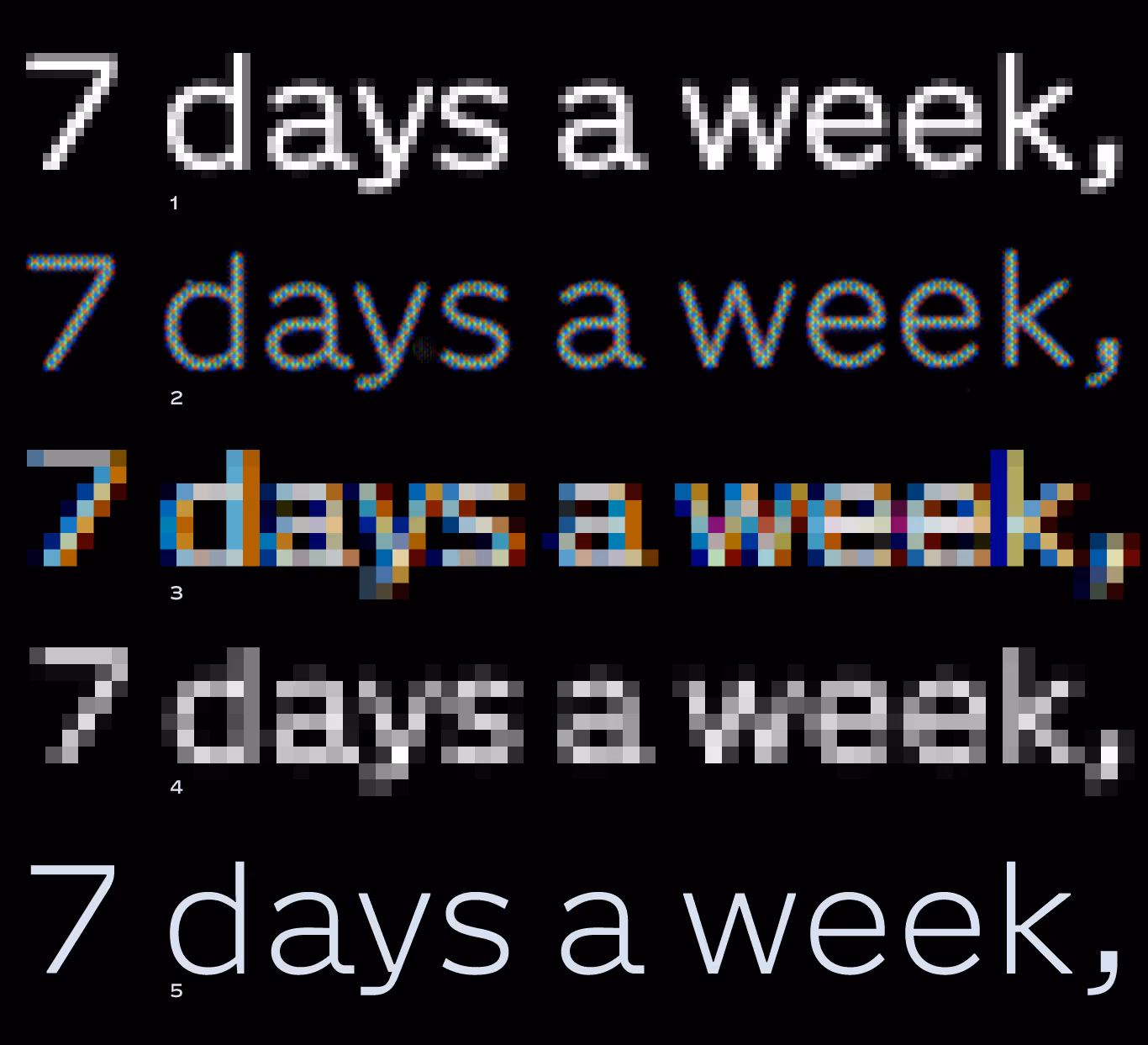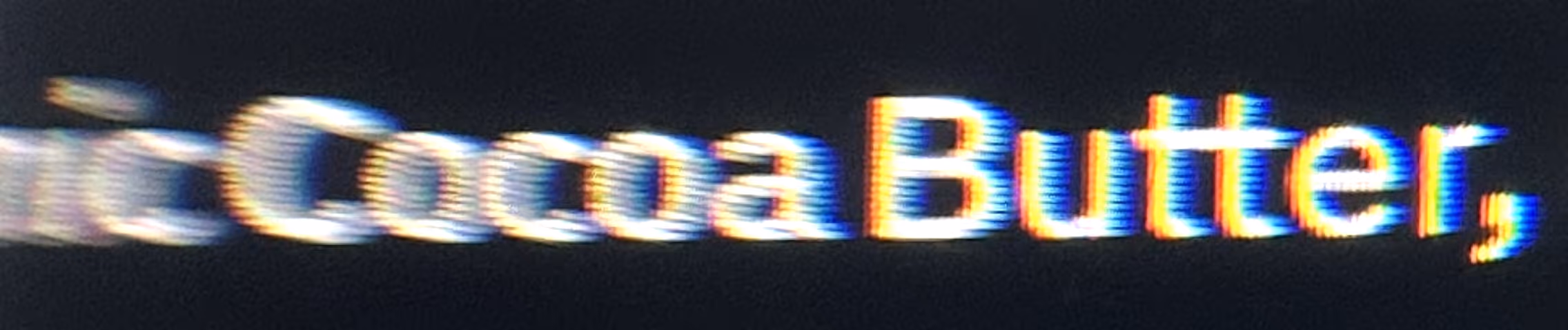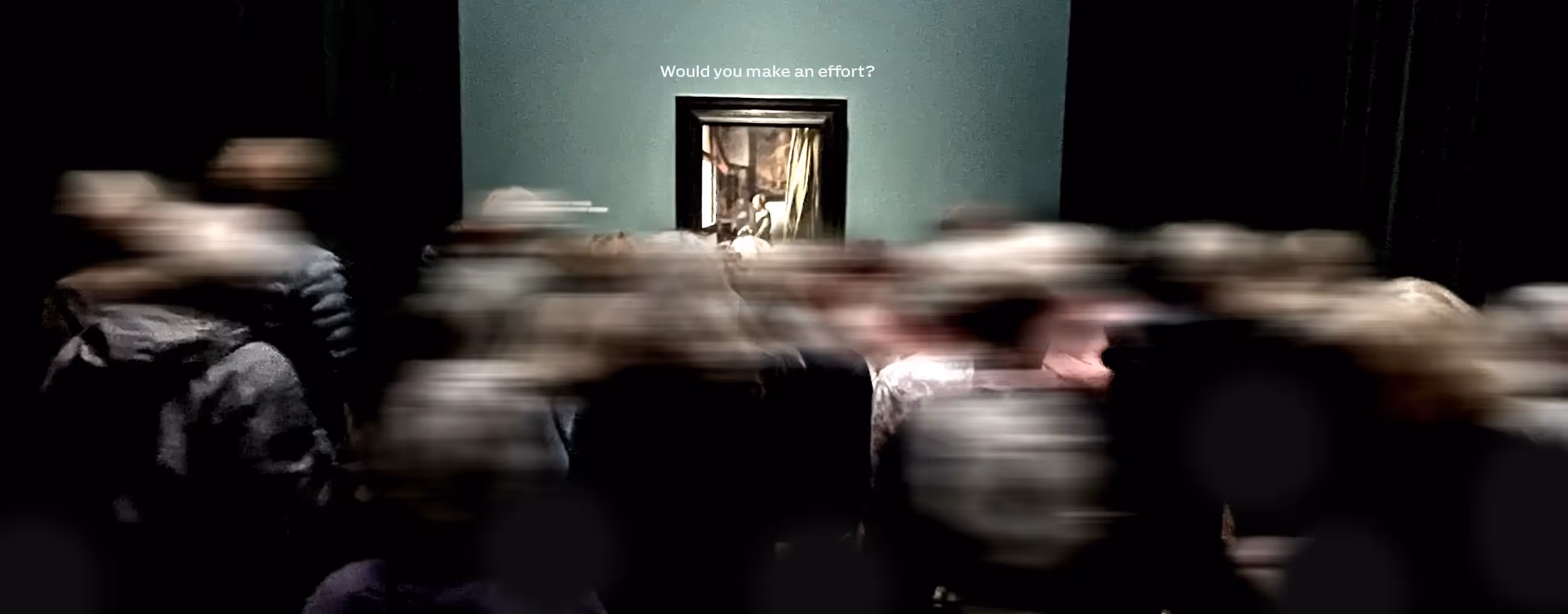
Think of all the optical processes that collectively enable reading. Not the cognitive steps (hard to observe unless you happen to be a neurologist with a spare MRI ), but all the moments before that. Anything to do with surface, shape, light, angular size, distance, cornea, lens, diffraction and retina. If you are a typographer, or a keen observer of the world in general, you will be familiar with these terms. This text explores some of the ideas that floated around in my head while I drew AG.
Squint
Smaller, bigger
As a reader you have some control over the process (of reading), but less than you think. You can only hope the materials were prepared with some care. The most comfortable reading takes place between arm’s length and somewhere near your nose, depending on your ability to accomodate and your age. The readable object, a book or device, can easily be moved closer or further as the eyes demand, possibly single handedly. This puts some practical limits on the weight and size of the object. Book designers know, some device designers know too, web and app designers definitely should know.
The typographer has to find a balance for the type size on such a readable object, while keeping in mind the needs of economy and comfort. Smaller type allows for more words on a page, but inevitably means the object has to be closer to the nose. Thus the hand brings it closer. Then the eyes have to work harder to accomodate and focus, so the hand moves the object further away again. As readers we do this almost automatically and if we manage to find a balance, there is a chance that some reading might take place. Failing that, headaches and frustration. Often the type size is to blame. You might not always know it when that happens.
For signage, posters, lettering on a wall, etc. your only means of adjusting the text is to move yourself through space. This is where typography for faraway objects branches off from typography for nearby objects. If a sign gets it wrong the reader might not be able to get any closer. Traffic, architecture, height, other people, there are many reasons why this might not be possible. You cannot switch the whole street to dark mode. You cannot pinch and zoom over the shoulders of the person in front of you. The cost of getting it wrong is higher. The typography has to work harder.
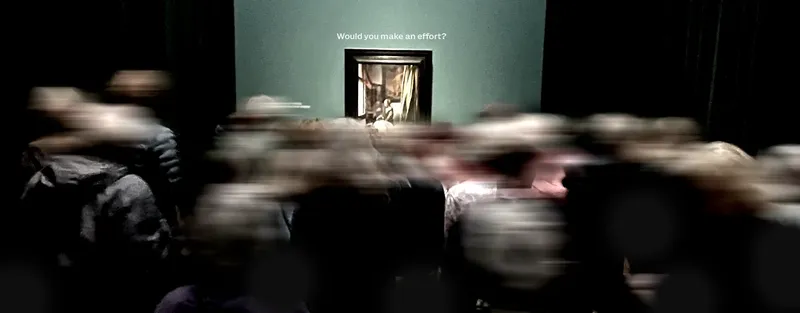
The text in this image is not small, but it is further away. Even if you want to read it you might not be able to move yourself to a point where you actually can. You are forced to consider whether it is worth making the effort, or just let it slide. In that case the typography has failed.
Some optical words
Angular size: imagine a 360° degree circle with the head of an observer at the center. Then think of the small part of this circle that is taken up by a line of text, from bottom to top. We can measure this section of the circle in degrees. However, the objects are so small it is more common to use the arc minute, 1/60 of a degree. That number is the angular size of a text.
We know everything gets fuzzy once it is small enough. The moment we can no longer tell two separate points apart is the Rayleigh limit. This is not a fixed value, but it can be approximated for optical apparatus like cameras or telescopes and indeed the eyes of individuals. The Snellen eye chart at your glasses shop uses this principle. Once things are smaller than this limit information is lost and you end up guessing. This applies to shapes, but also to countershapes! There is no real way to counter this, it is a physiological reality. But by being aware of it, you can find ways to emphasise a shape and give them a bit more room, if possible.
The eyes make quick movements in order to observe the world. These were described by and Emile Javal in 1907 and are called saccades. During reading, the eyes alternate these jumps along the line of text with brief moments of fixation. The fixation points do not overlap so you do not see all letters, but as long as the ones you do see contribute to words that make sense the brain will plan another jump forward along the line. This saccade planning is informed by your parafoveal vision i.e. information from the retina outside the foveal area. Sketchy stuff at best, and why proofreading your own text is dicey as your brain can fill the gaps with what you intended to write making it easy to pass over mistakes. The brain cannot change the movement once the saccade has started, so if the letters at the fixation point no longer make sense (and you can’t fit any words to the letters you think you saw) the saccade planner sends the eyes back somewhere on the line. This is called a regression. A certain number of regressions while reading is normal and happen mostly unnoticed, but if a text triggers excessive regressions, the smooth reading experience is interrupted.
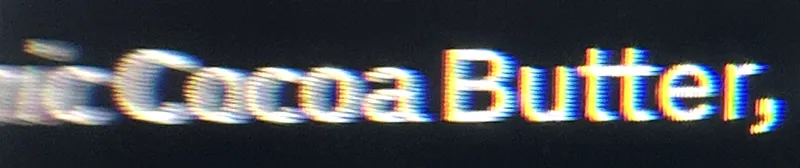
Do we even know how to visualise the optical component of parafoveal vision? No idea to be honest. But I know it is probably not a Gaussian blur. This is a photo from a magnifying glass, on a display, at the edge of the lens where it really starts to distort. Would parafoveal vision have such color aberrations, like “Butter”? Might it have direction, like “Cocoa”? Not my field, but I’d be curious to find out.
Extreme line length can also disrupt reading. At the edge of the column the eyes need to make a saccade to return to the beginning of the next line, and the saccade planner is not very good with long jumps. If the column is too wide, or the lines are too close together, this jump can fail and you lose your place in the text. Graphic designers like to make the line length fit a grid on the page, often resulting in uncomfortably wide text columns and promising a laborious reading experience. Related: having to scroll horizontally to read a line, and then scroll back! Shivers! So bad.
Familiarise with the angular size. Some things may appear exactly the same, even if they are further away.
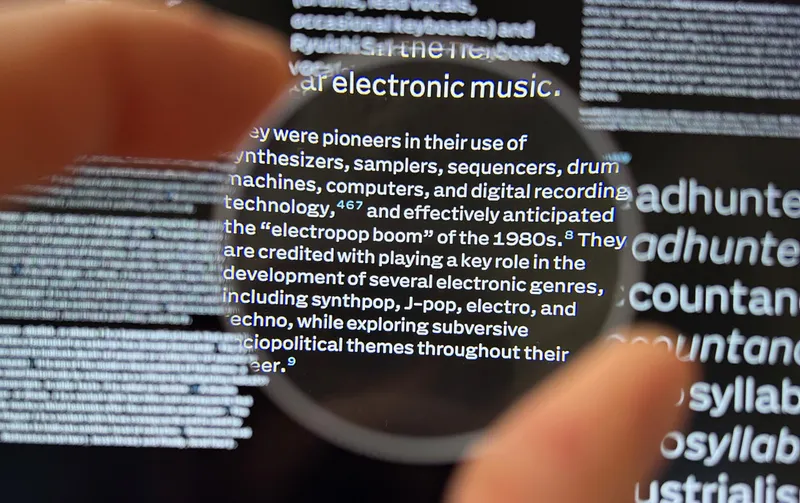
Take a good look. Do you see what is happening? A hand holding a round lens in front of proofing text on screen. The pixels are rough, but the letters remain clear. Anyway, here are the footnotes.